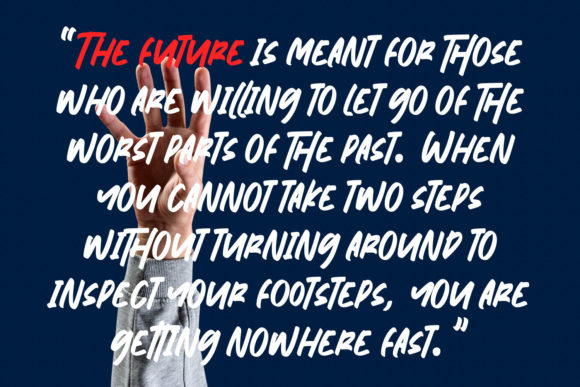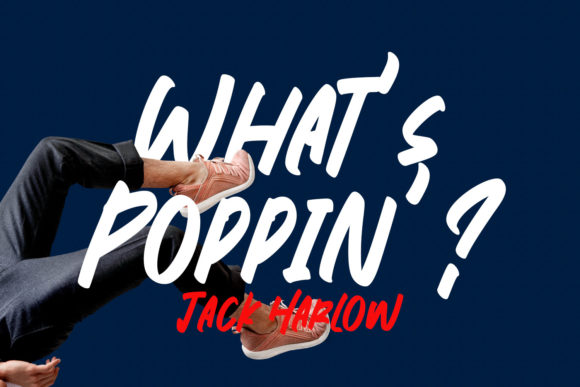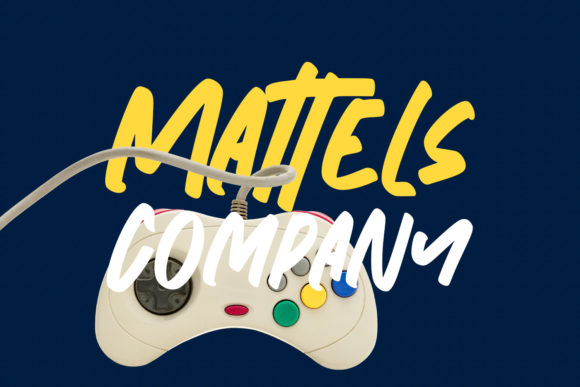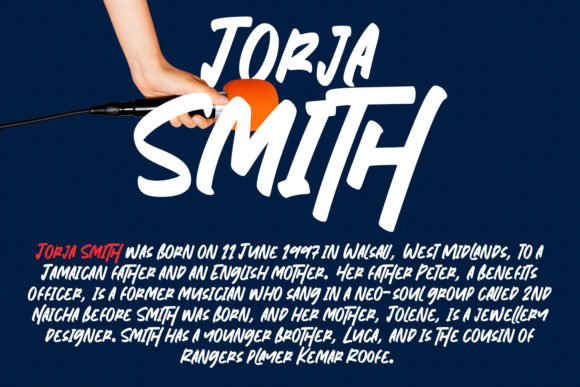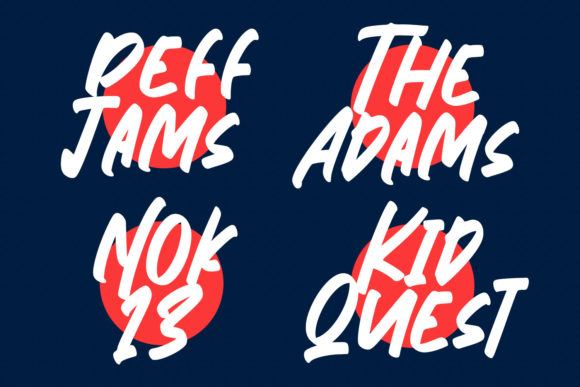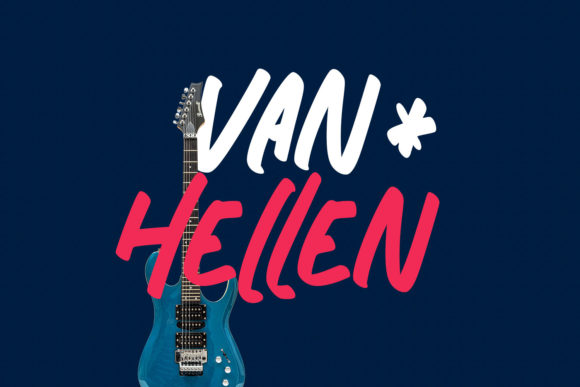
Introduction to Mc Handy Font
Have you ever stared at a blank canvas, waiting for inspiration to strike? The silence is broken by a burst of creativity, and suddenly, your mind is flooded with ideas. It’s in these moments that we, as designers, are reminded of the importance of having the right tools at our disposal. For many of us, the perfect font can be the spark that sets our creative project ablaze.
Enter the Mc Handy Font – a casual display font that’s sure to elevate your designs to the next level. With its versatility and high-quality design, this font is perfect for any creative project, from eye-catching posters to professional flyers. Whether you’re working on a free download or a paid project, the Mc Handy Font is an excellent design resource that’s sure to impress.
Key Features of Mc Handy Font
- High-quality, unique design perfect for creative projects and branding
- Mc Handy Font is ideal for digital projects, such as logos, icons, and graphics, due to its versatility and modern style
- Perfect for designers, artists, and entrepreneurs looking for a unique and professional design element for their creative project
Honest Review: Mc Handy Font
I recently came across the Mc Handy Font and was excited to give it a try for my latest creative project. The first thing I noticed was the clean and modern design of the font, which is perfect for a variety of design applications.
- ✨ High-quality design: The Mc Handy Font has a crisp and clear appearance that makes it ideal for printing and digital use.
- ⚠️ Limited font styles: The Mc Handy Font only comes in a few font styles, which may limit its versatility for some designers.
- ⚠️ No bold or italic options: Unfortunately, the font does not have bold or italic options, which may make it difficult to use in certain situations.
Overall, I would say that the Mc Handy Font is a solid addition to any designer’s toolkit. While it may have some limitations, its high-quality design and free download make it a great resource for any creative project.
Tips for Getting the Most Out of Mc Handy Font
To get the most out of the Mc Handy Font, use it in conjunction with other high-quality design resources. Experiment with different font sizes, colors, and styles to create unique and eye-catching designs. The transparent background feature of the Mc Handy Font makes it perfect for creating designs with a professional look.
Common Use Cases for Mc Handy Font
The Mc Handy Font is commonly used in creative projects such as logos, brochures, and business cards. Its high-quality design and transparent background feature make it perfect for creating professional-looking designs.
Alternatives to Mc Handy Font
Open Sans is a highly legible and versatile font perfect for creative projects requiring a clean and modern look. It’s available for free download and is ideal for digital designs with a transparent background. When to use: For digital designs, such as website headers, social media posts, or mobile apps. How it compares to Mc Handy Font: Open Sans is more modern and sans-serif, whereas Mc Handy Font has a more playful, handwritten feel.